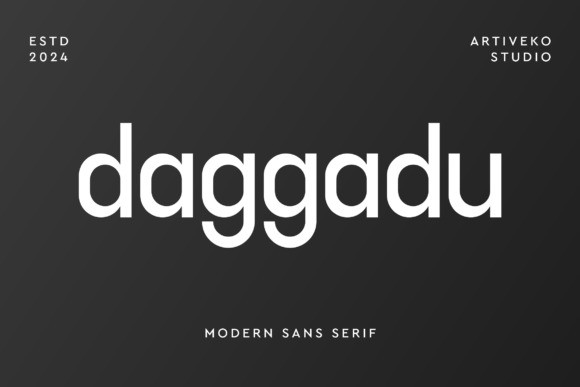
Daggadu Font
Daggadu Font is a powerful sans serif font that combines bold geometry with clean minimalism. Designed to create an impactful visual presence, Daggadu is perfect for branding, posters, packaging, sports graphics, headlines, and digital media projects.